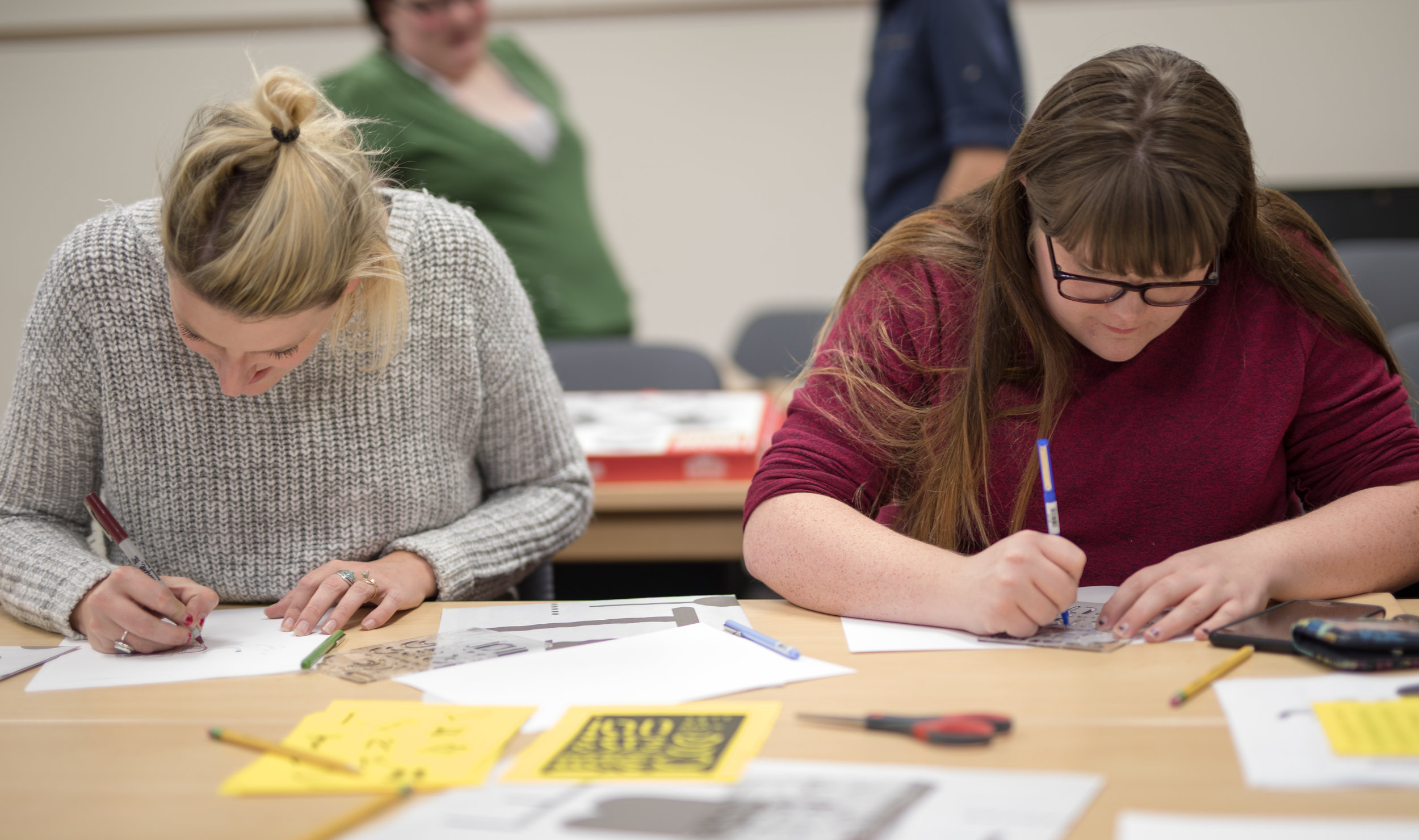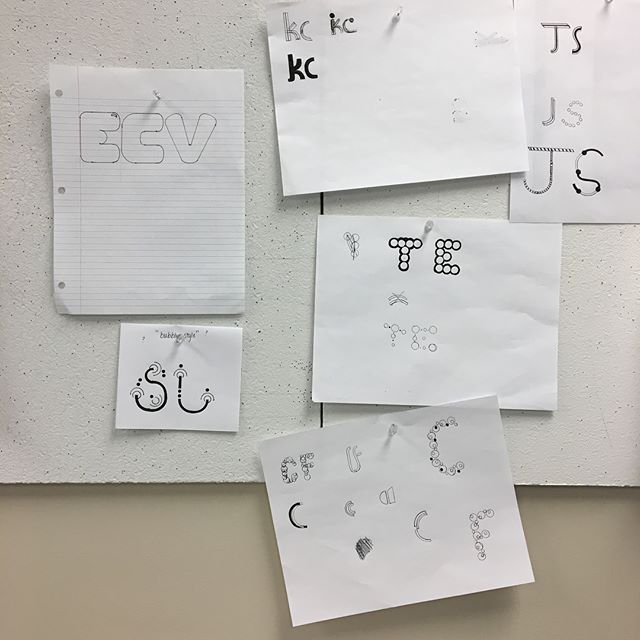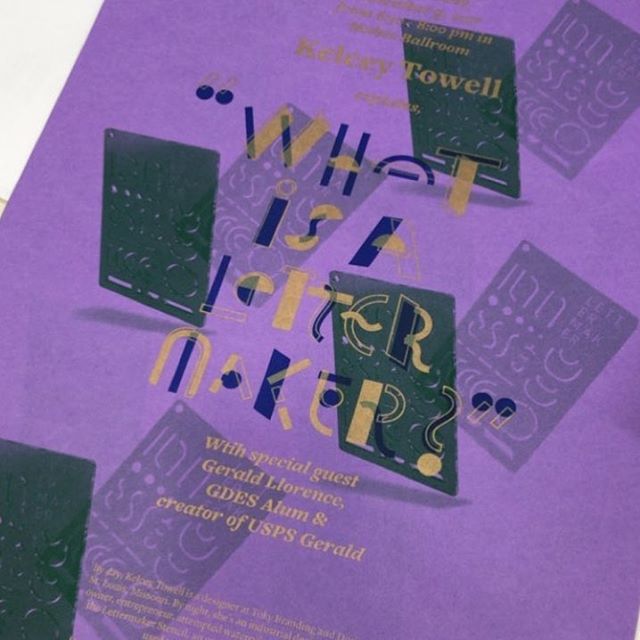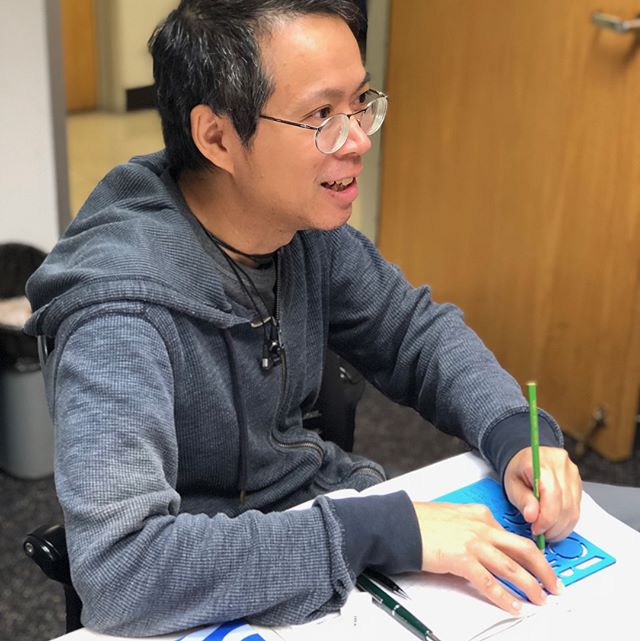
The LetterMaker is a stencil that enables anyone to construct custom lettering.
It breaks letters into their most basic building blocks of vertical and horizontal strokes, diagonals, and curves. Equipped with these simplified shapes, anyone can invent their own letterforms.
"It makes me feel like a kid again."
Camilla Barnard, Designersblock
"The stroke is the
fundamental artifact"
GERRIT NOORDZIJ, The Stroke: Theory of Writing